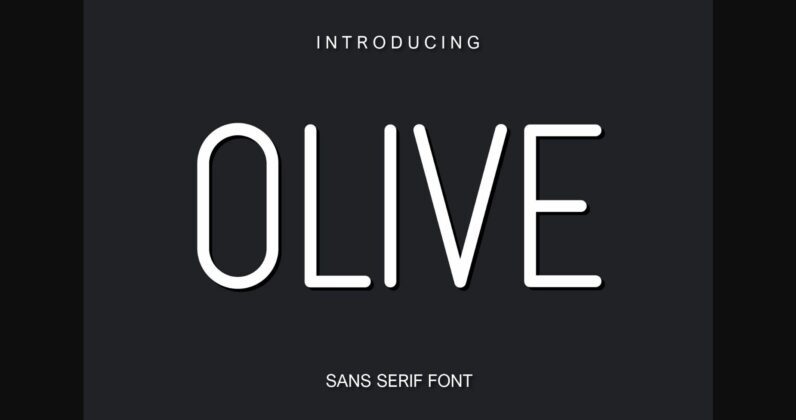
About Olive Font
Olive is a clean sans serif font with three variants and a minimal vibe. It can easily be matched to an incredibly large set of projects, so add it to your creative ideas and notice how it makes them stand out!